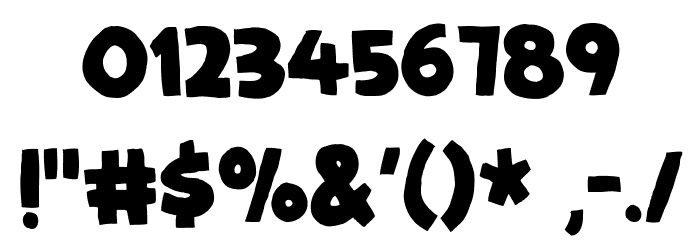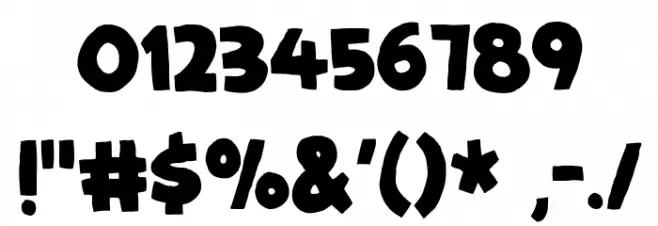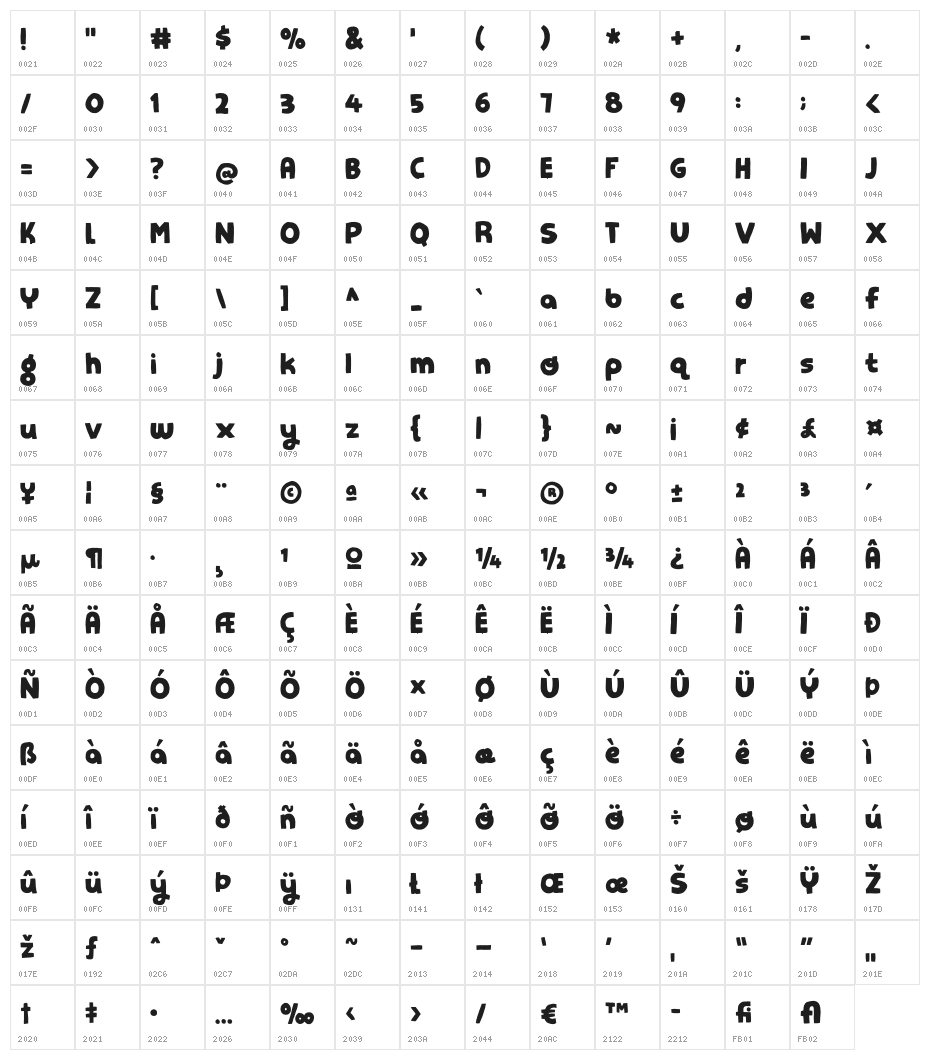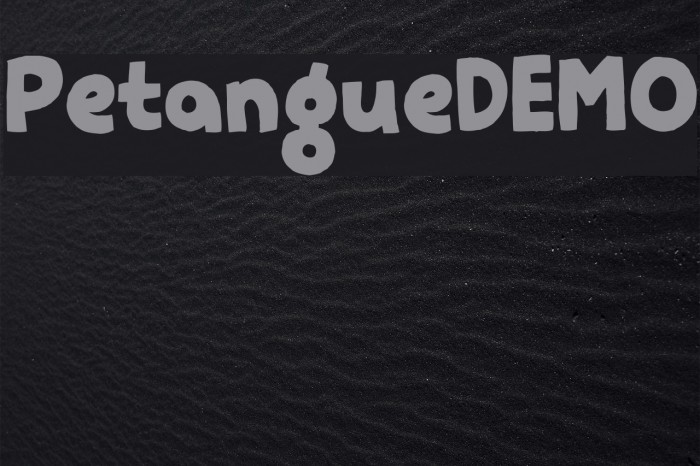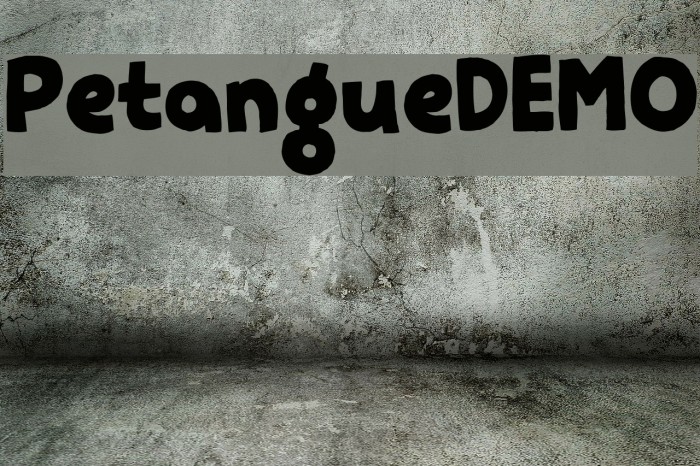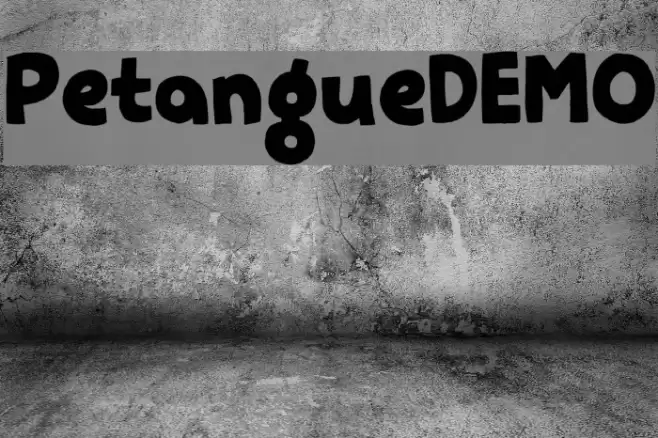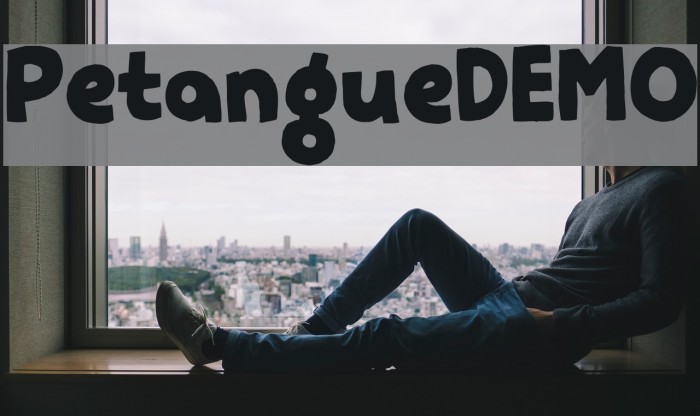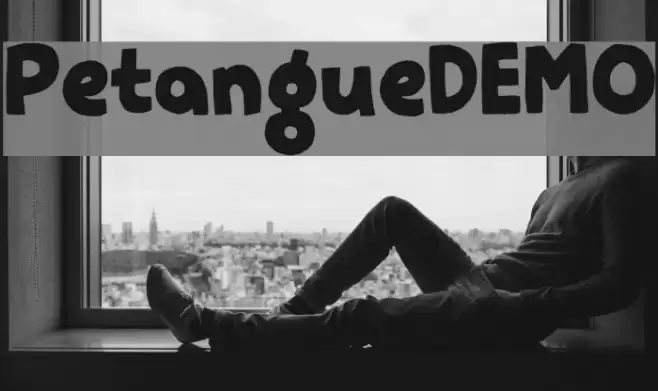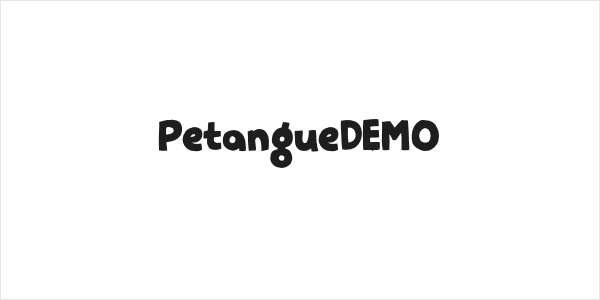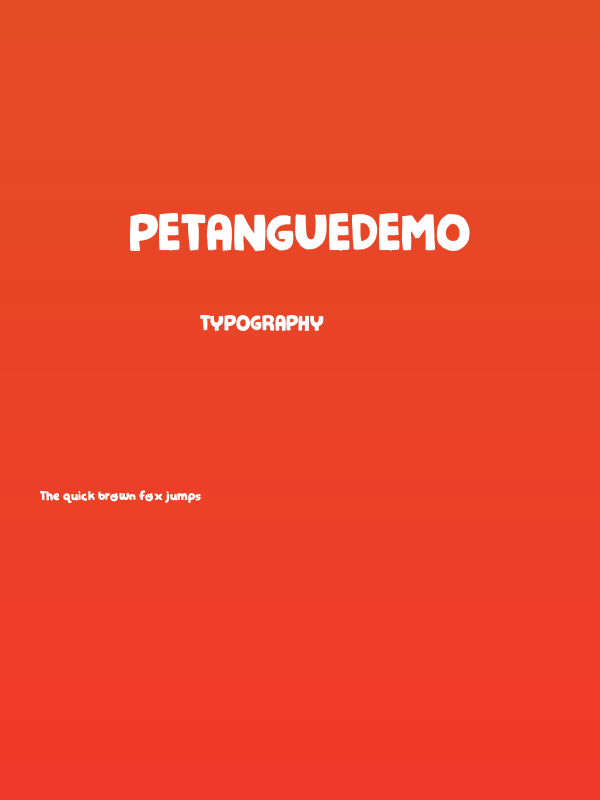
PetangueDEMO Font
PetangueDEMO Description
This font features a bold and playful design with a hand-drawn aesthetic. The characters are thick and rounded, giving them a friendly and approachable appearance. The uppercase and lowercase letters maintain a consistent style, with slightly irregular shapes that add to the whimsical feel. The numbers and special characters follow the same design principles, ensuring a cohesive look across all elements. This font is ideal for projects that require a fun and informal touch, such as children's books, playful branding, or creative posters.
| Overall Style | Playful, Whimsical, Hand-drawn |
| Proposed Projects | Children's books, playful branding, creative posters, informal invitations. |